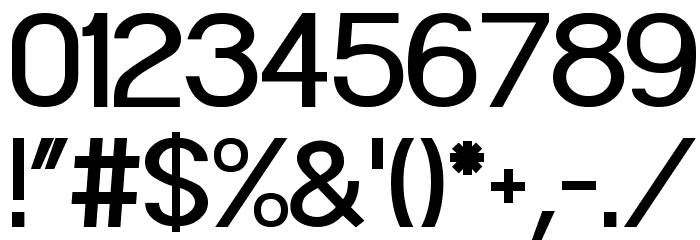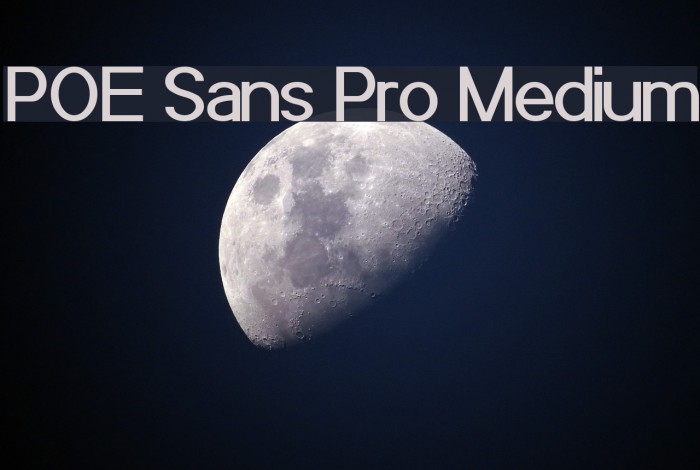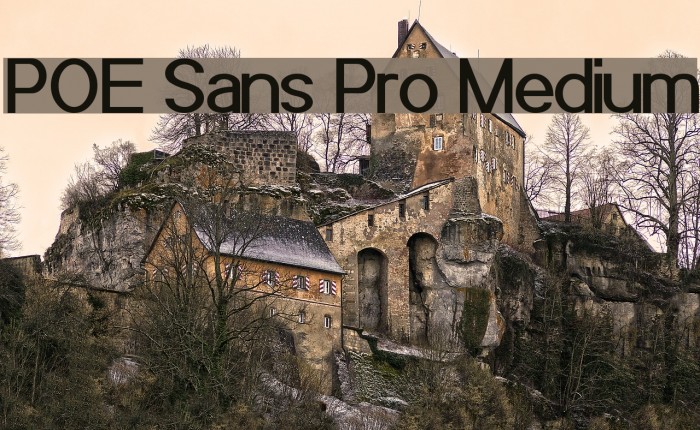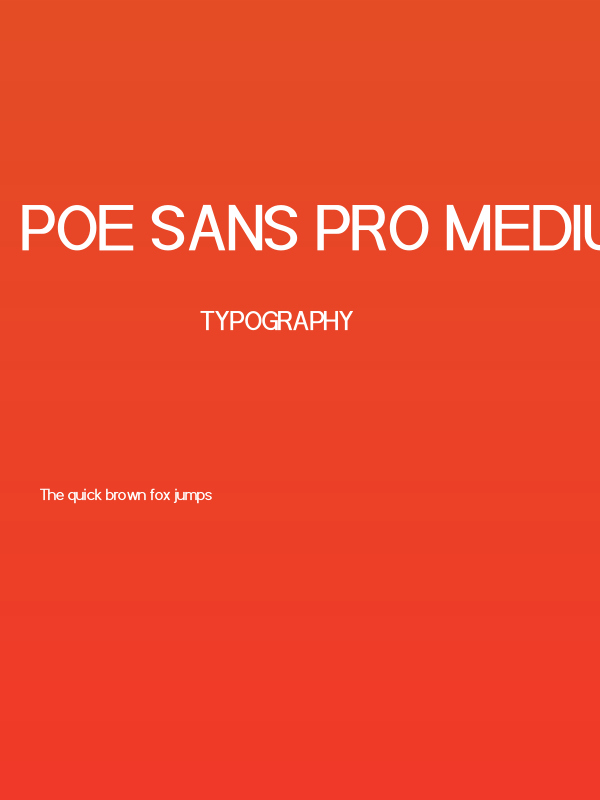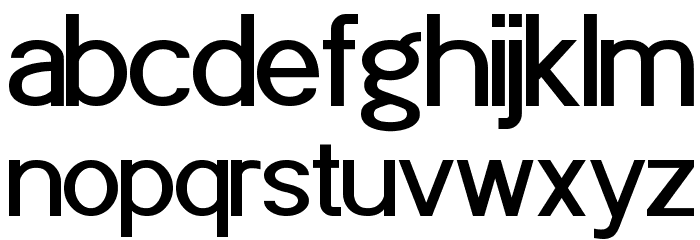
POE Sans Pro Medium Font
POE Sans Pro Medium Description
This font features a clean and modern sans-serif design, characterized by its uniform stroke width and geometric shapes. The uppercase letters are bold and assertive, while the lowercase letters maintain a balanced and approachable appearance. The numerals are clear and easy to read, making them suitable for both digital and print media. Special characters are well-defined, ensuring versatility across various applications. The overall design is minimalistic, focusing on readability and functionality.
| Proposed Projects | Ideal for branding, web design, corporate materials, and user interfaces due to its clarity and modern aesthetic. |